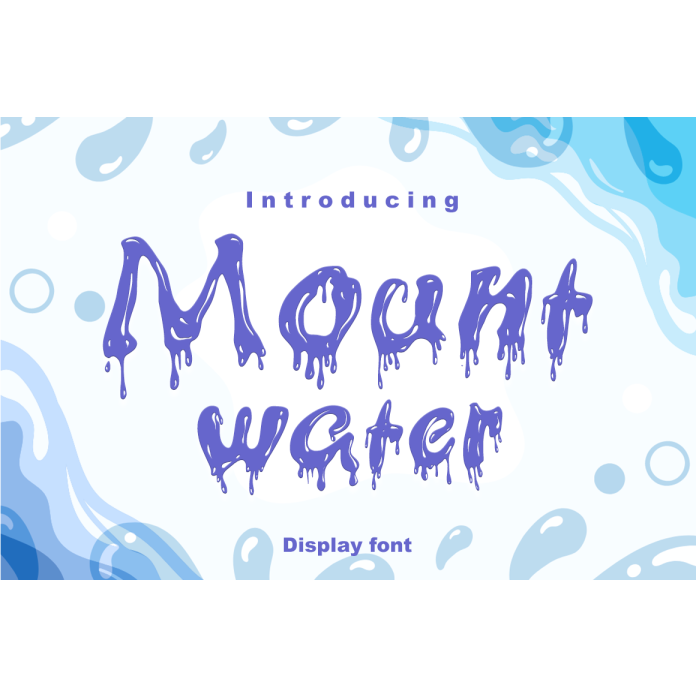
Mount Water is a decorative brush font that exudes a sense of fluidity and movement. Its unique design features flowing strokes that resemble water cascading down a mountain. This font is perfect for adding a touch of elegance and sophistication to any project, whether it be for branding, invitations, or social media graphics.